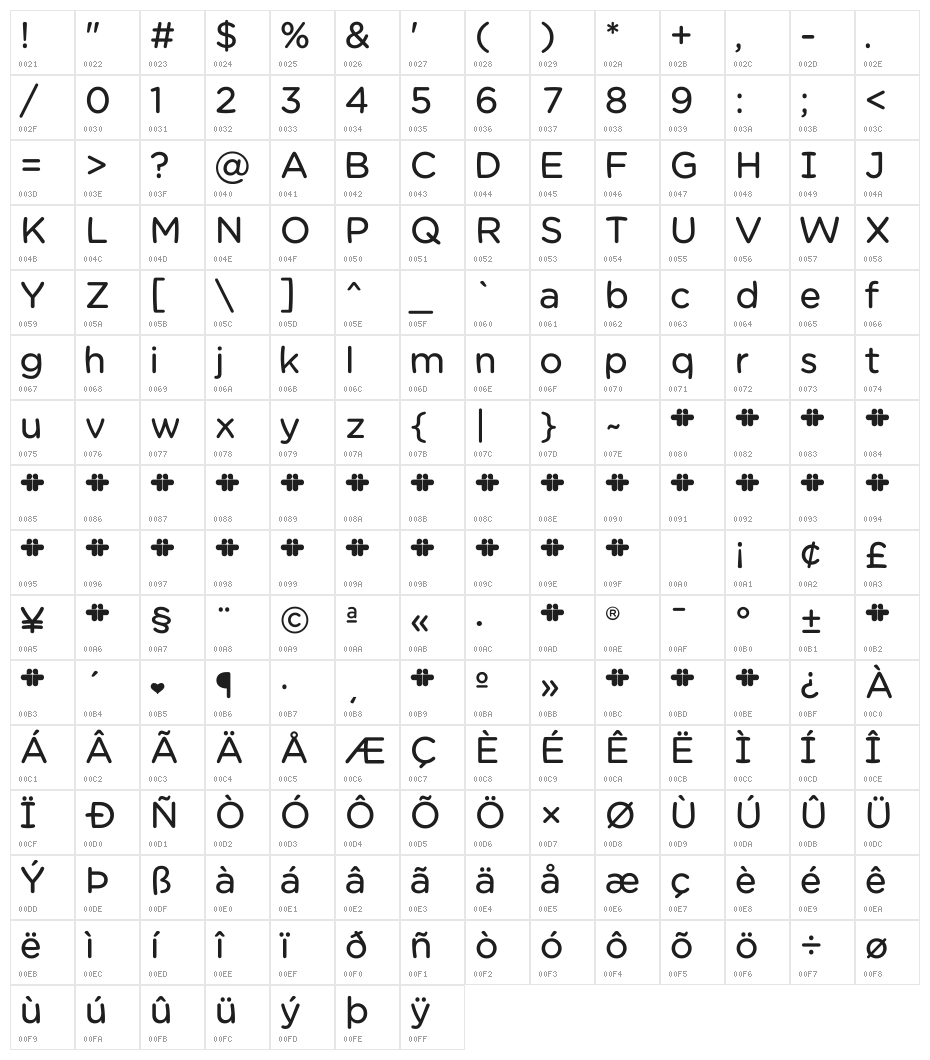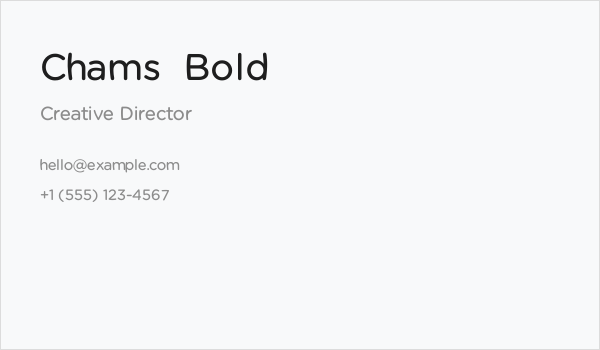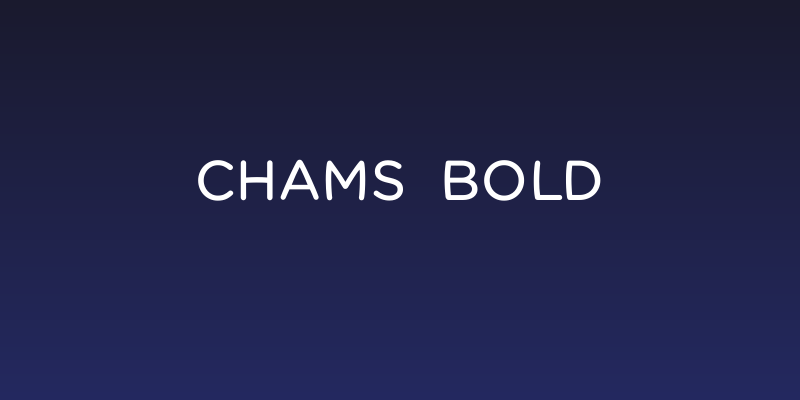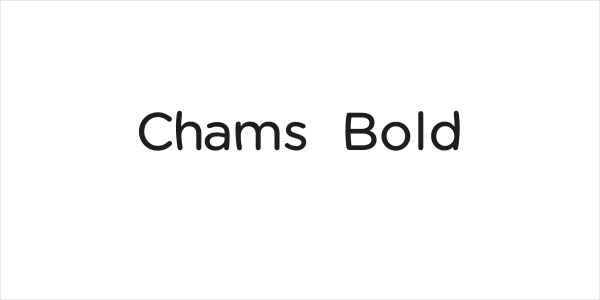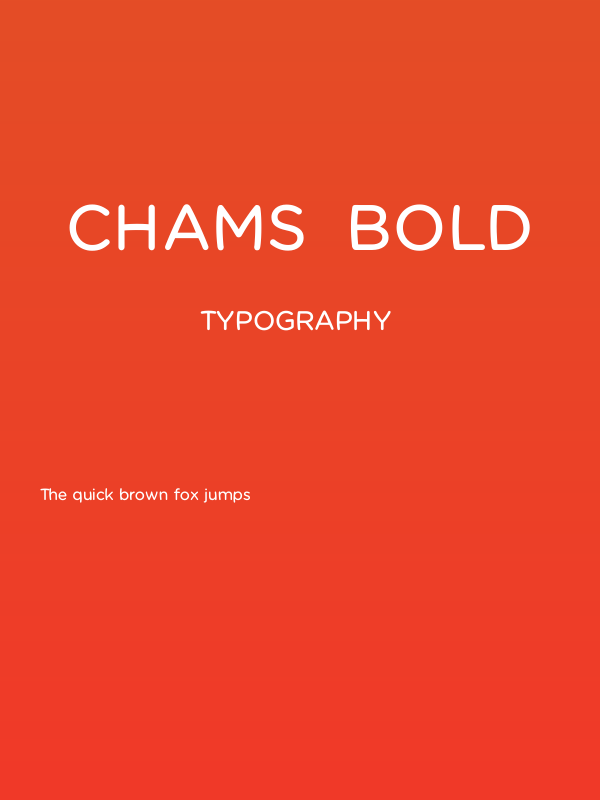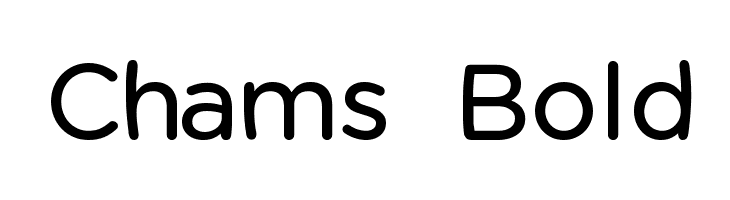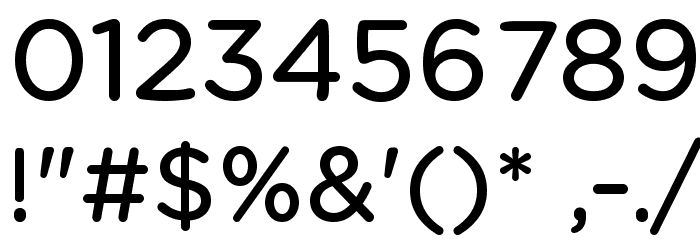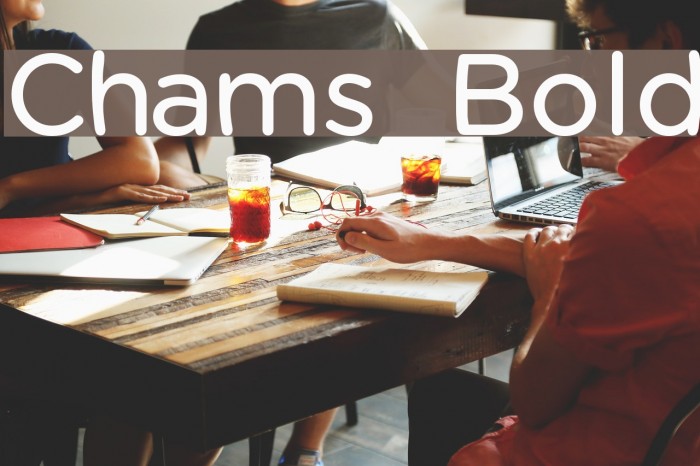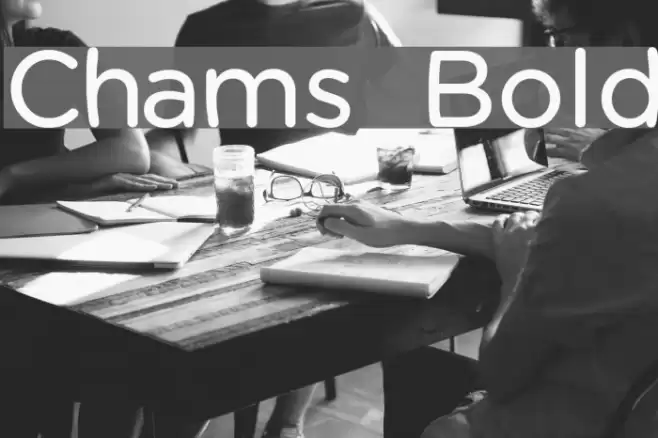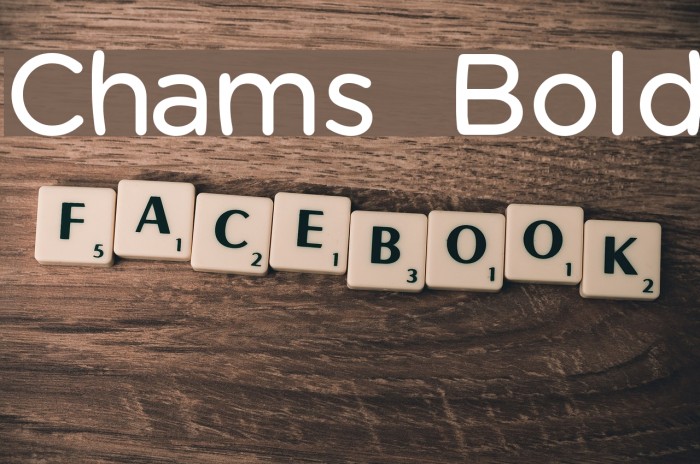
Chams Bold Font
Chams Bold Description
This font presents a clean and modern aesthetic with rounded edges and a friendly appearance. The characters are evenly spaced, contributing to a balanced and approachable look. The uppercase and lowercase letters maintain a consistent style, with smooth curves and a uniform stroke width that enhances readability. The numerals are clear and distinct, making them suitable for various applications. Special characters are well-integrated, maintaining the overall cohesive design. This font is versatile, suitable for both digital and print media, and can be used in a variety of contexts where clarity and a contemporary feel are desired.
| Use Case | Headlines, Body text, Logos |
| Proposed Projects | Ideal for branding, web design, user interfaces, and educational materials. |